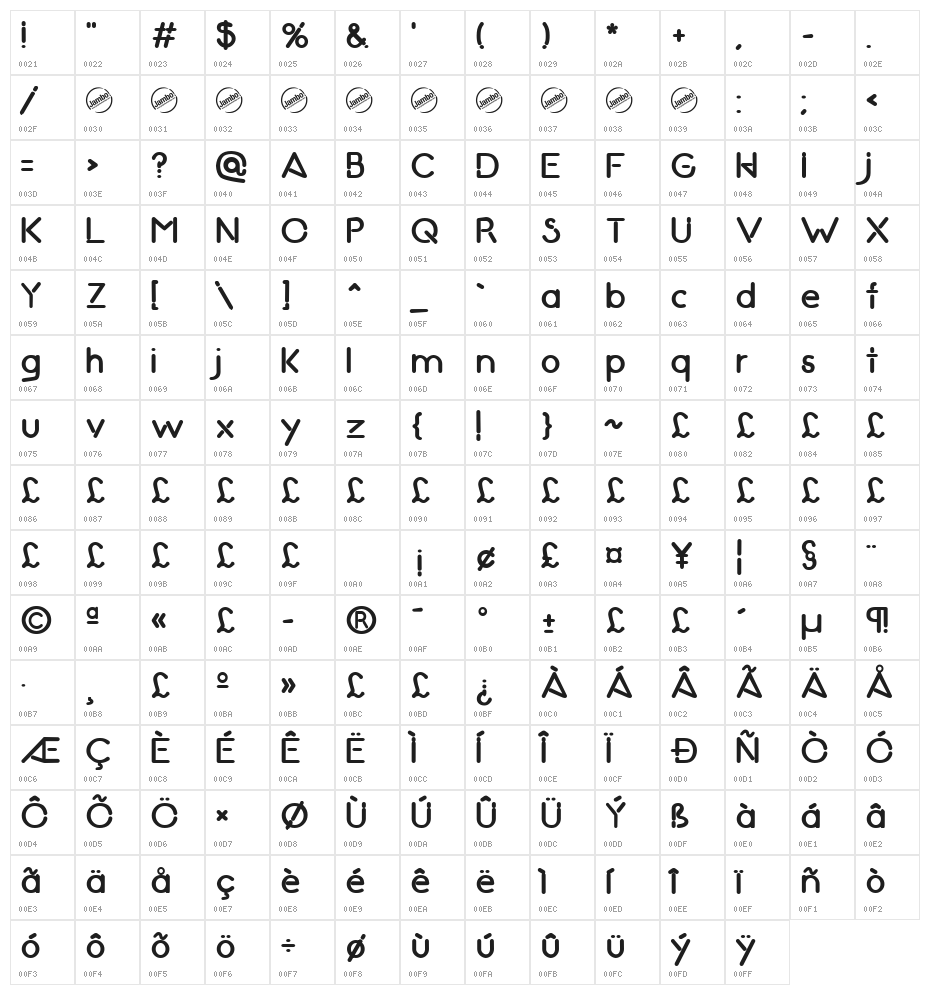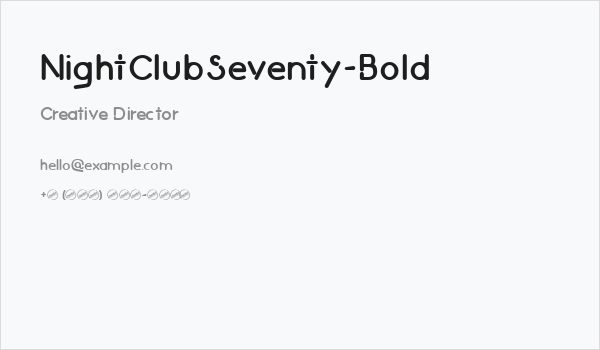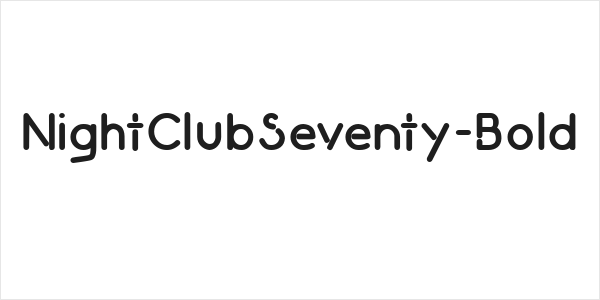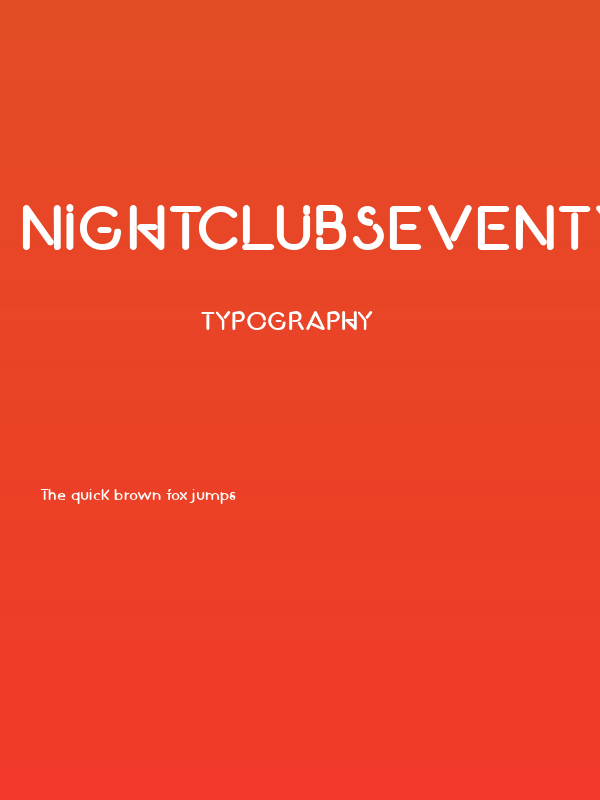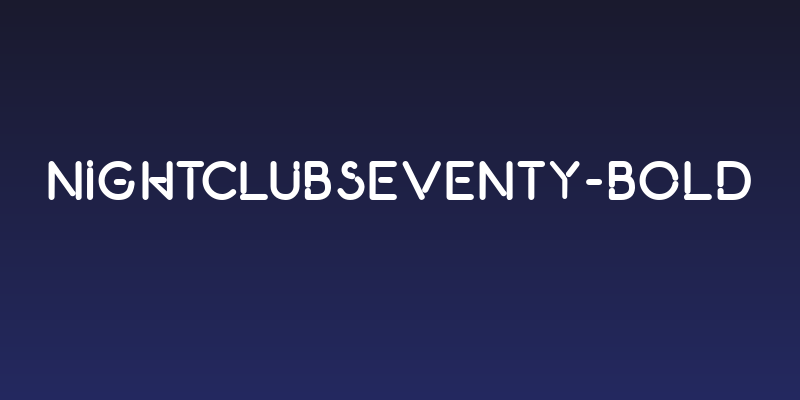
NightClubSeventy-Bold Font
NightClubSeventy-Bold Description
This font features a bold and rounded style with a modern and playful aesthetic. The characters are evenly weighted, providing a consistent and smooth appearance. The rounded edges and uniform stroke thickness give it a friendly and approachable feel. The uppercase and lowercase letters maintain a cohesive look, while the numerals and special characters complement the overall design. Its geometric shapes and clean lines make it suitable for contemporary projects.
| Proposed Projects | Ideal for branding, advertising, posters, and digital media where a modern and approachable look is desired. |